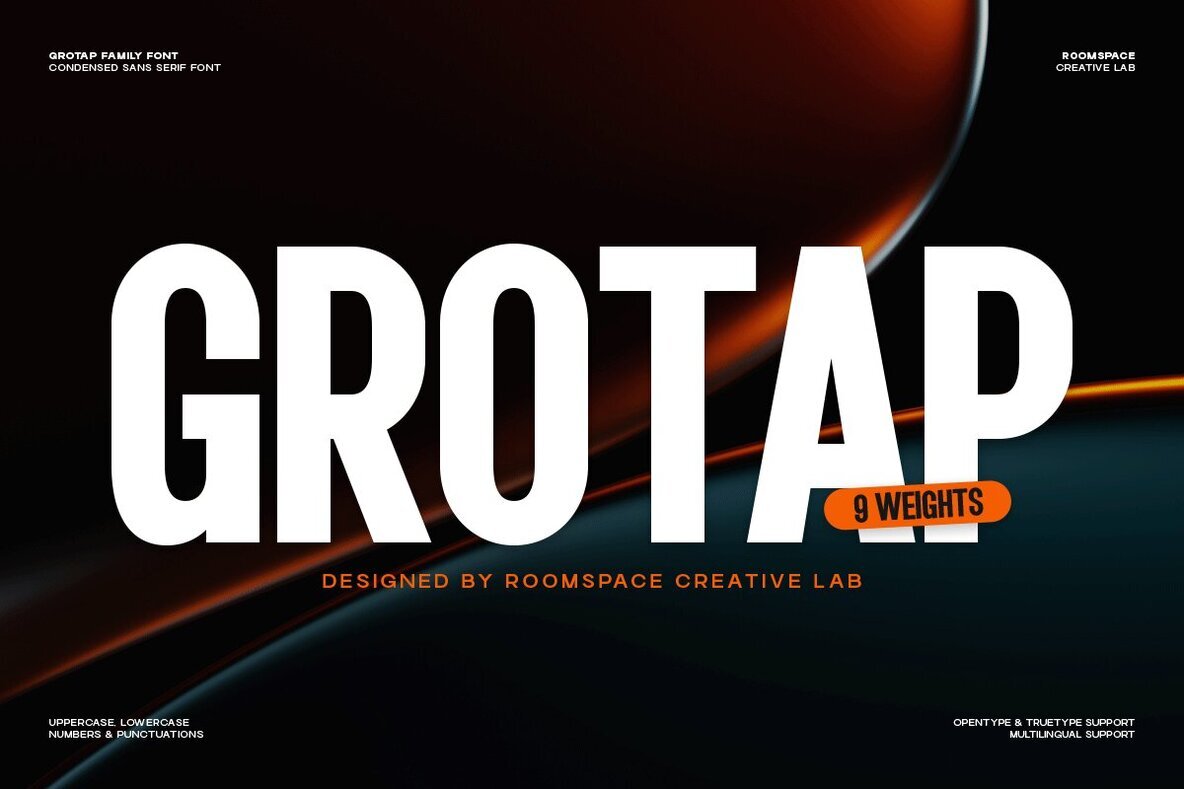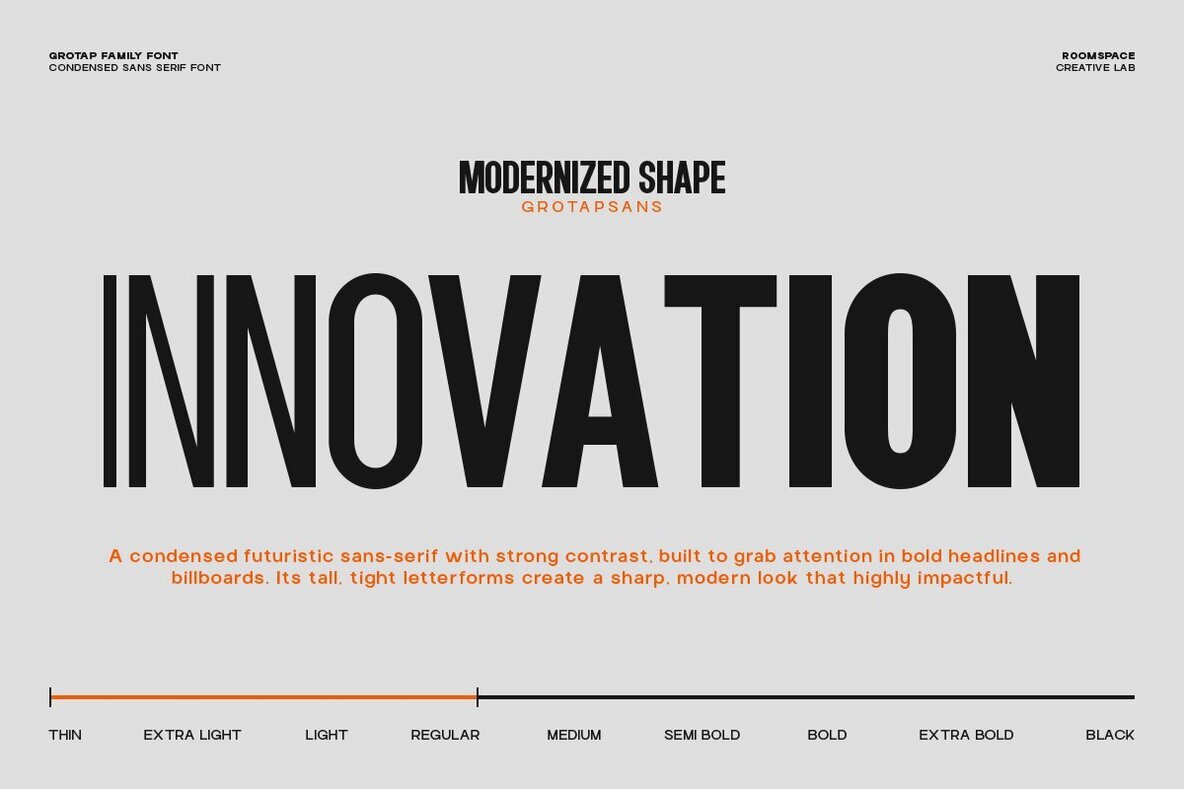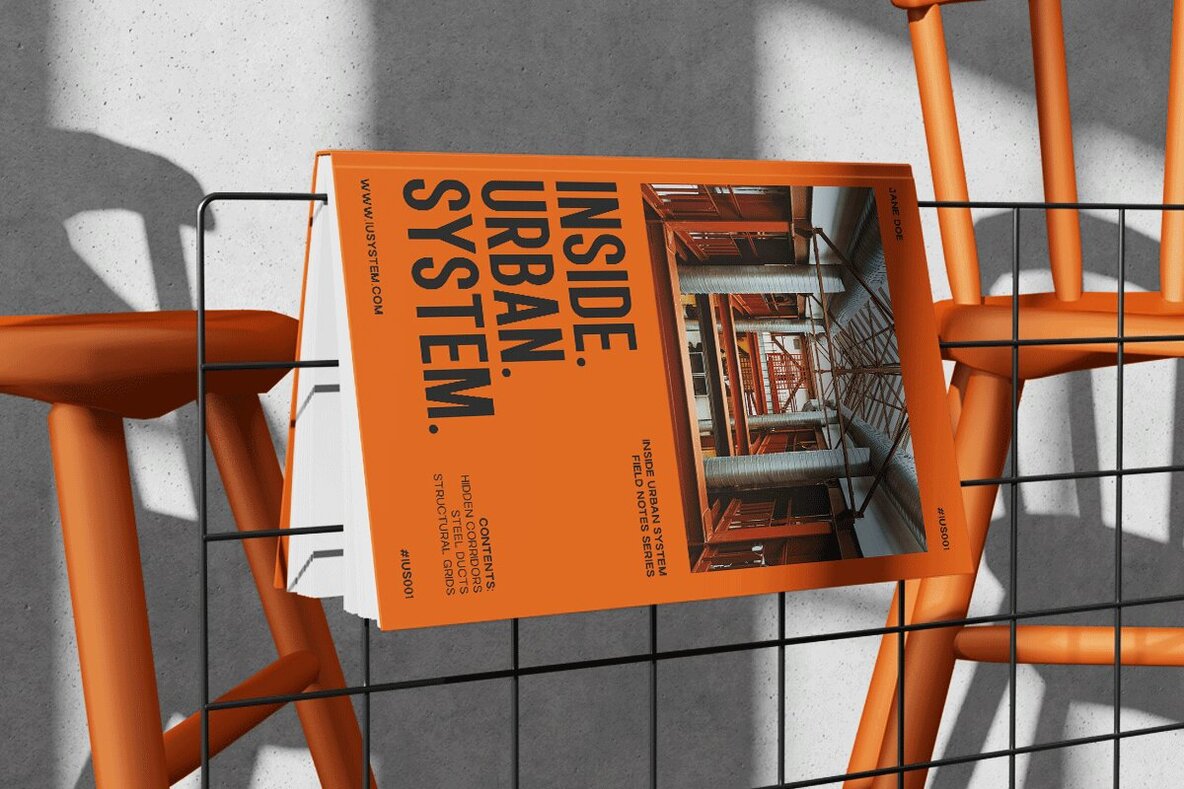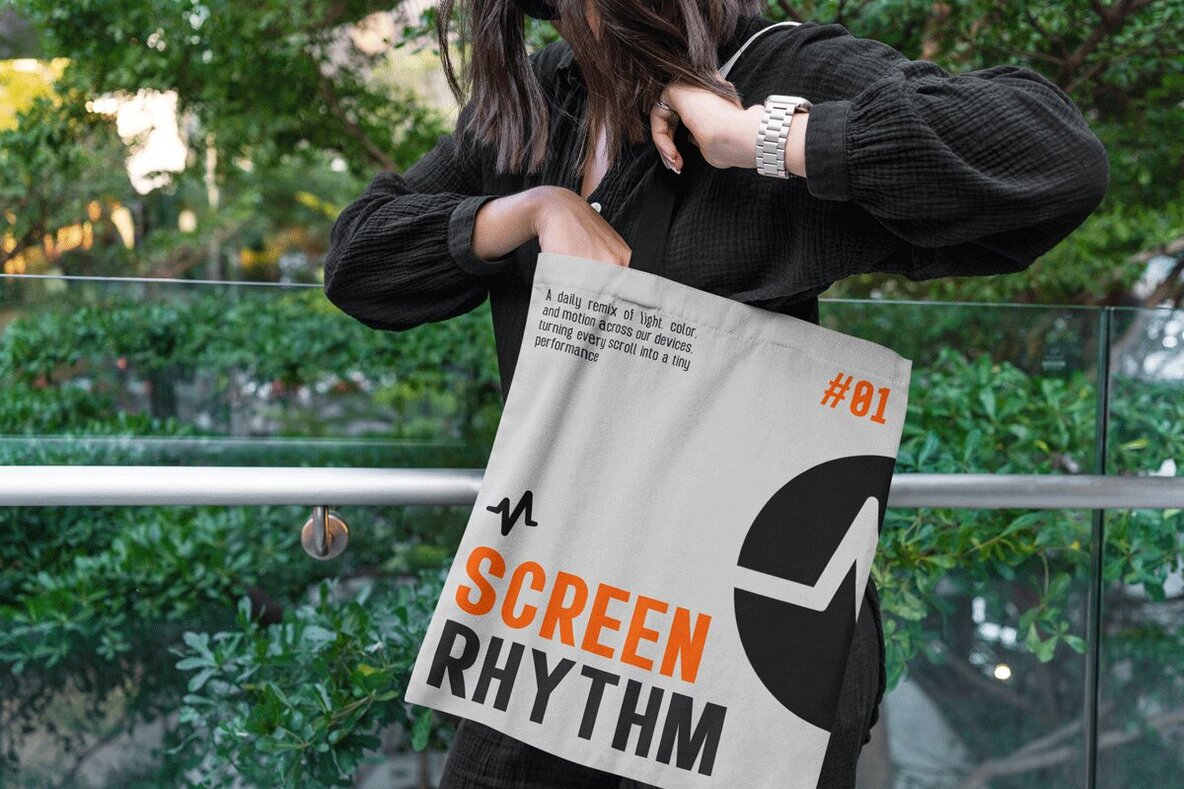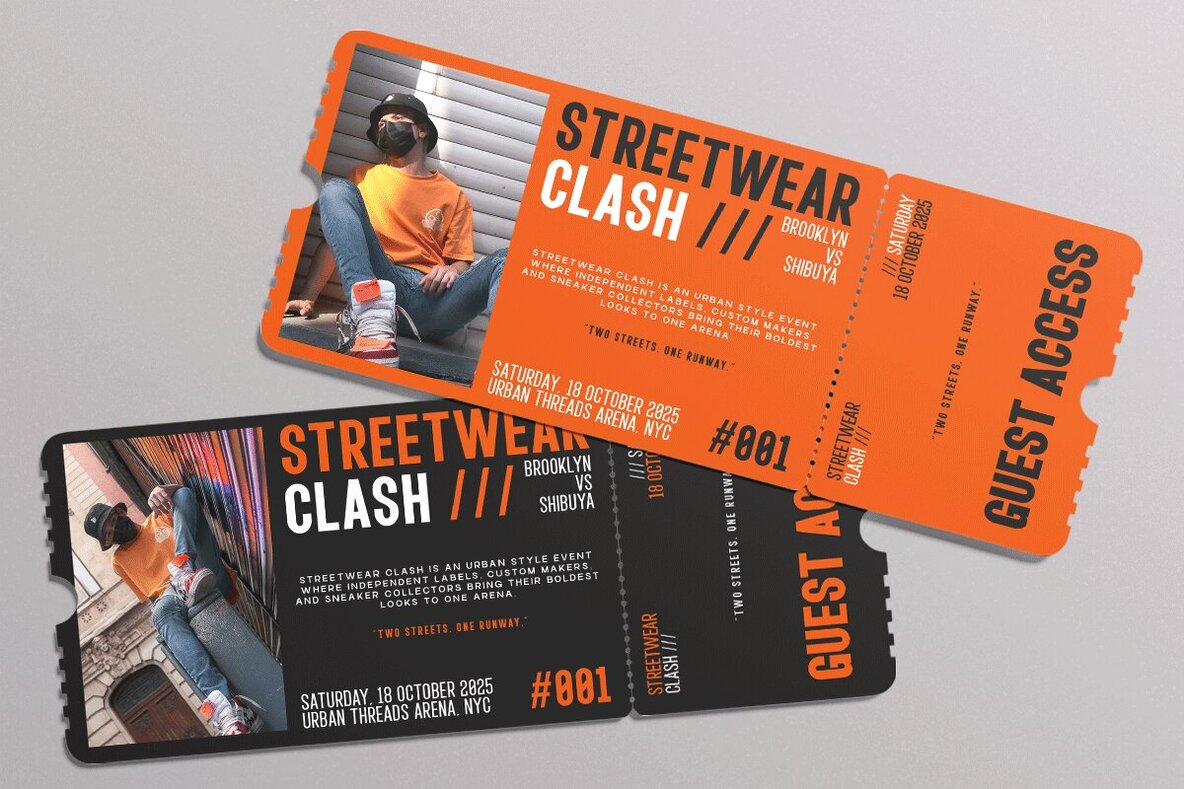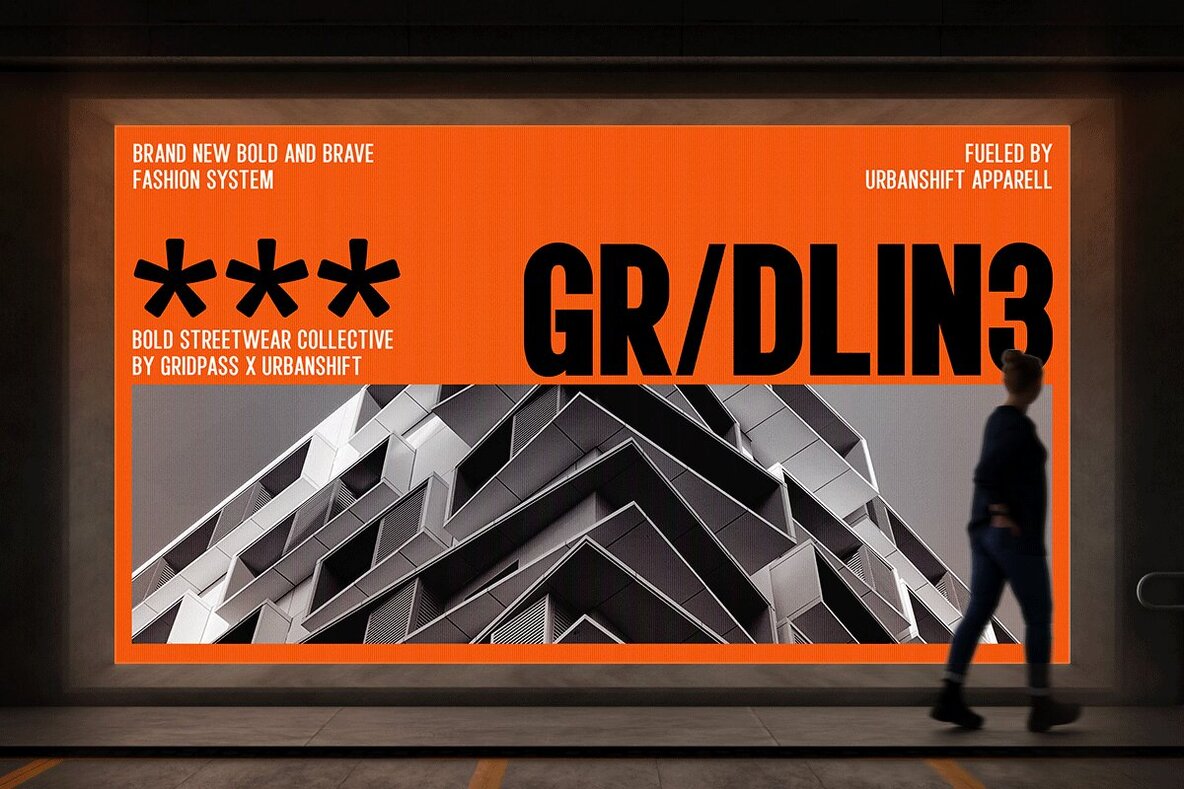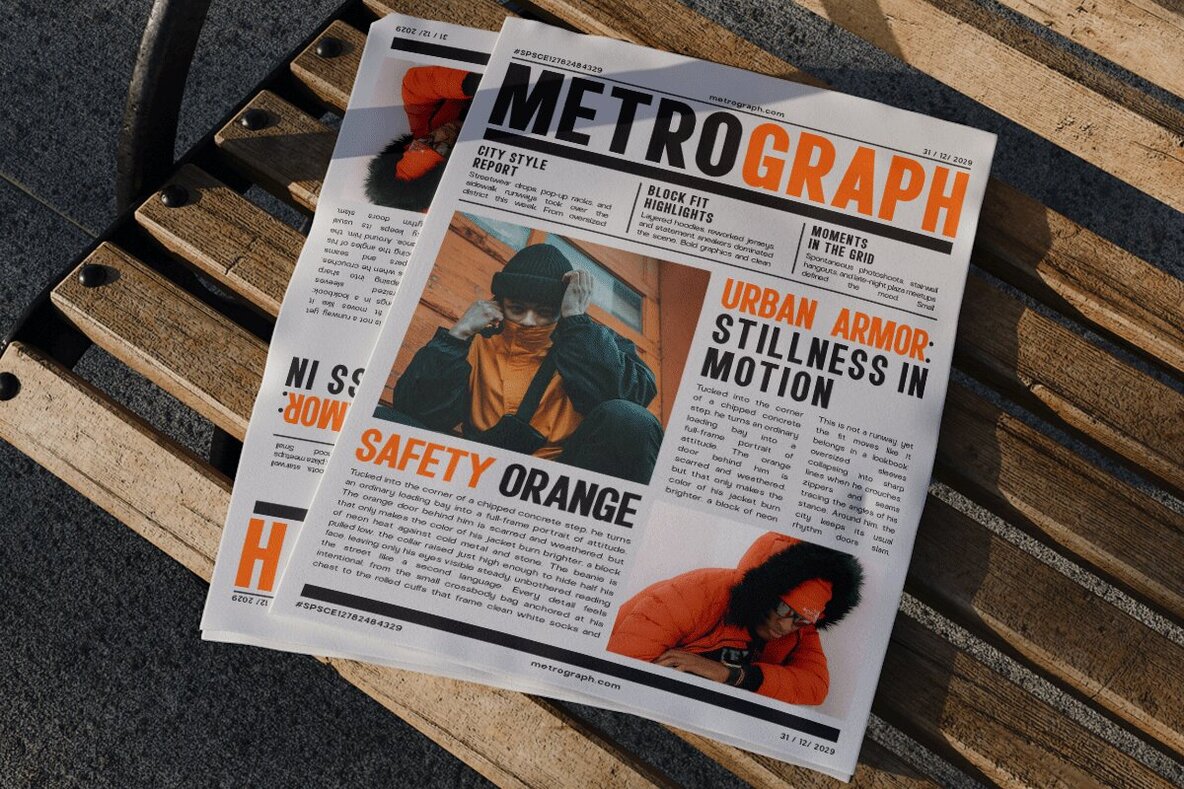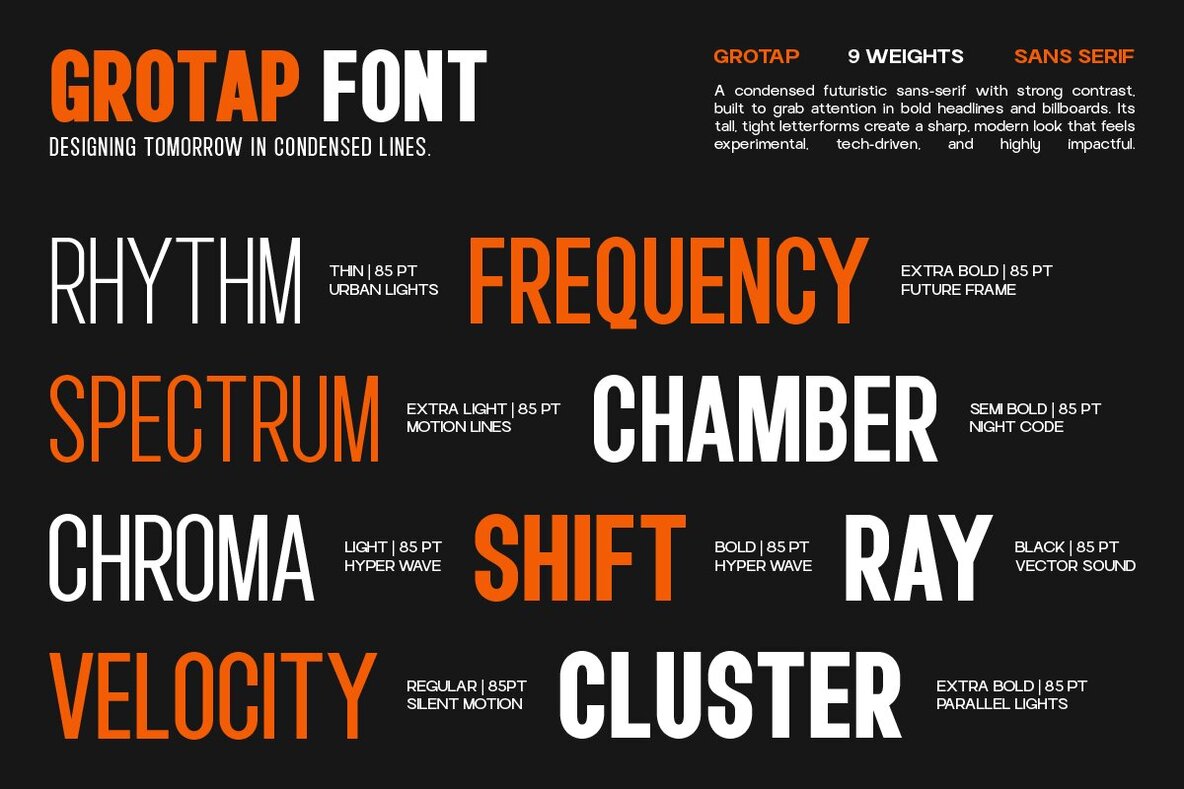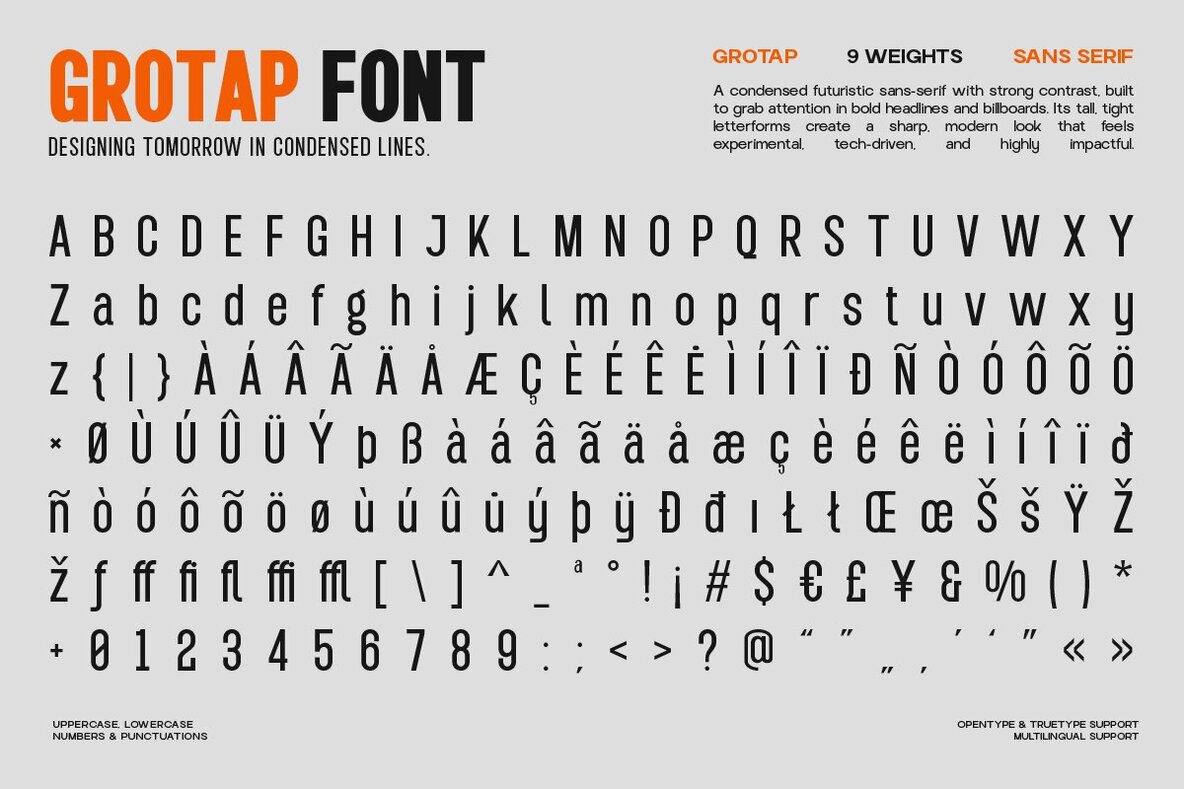
Grotap Font
Grotap stands out as a condensed sans-serif family purpose-built for modern editorial layouts and branding projects. With nine carefully engineered weights, it supports graphic designers seeking flexible type solutions that maintain clarity across headlines, packaging, and digital interfaces. The family’s tall letterforms and geometric structure elevate readability while creating a distinctive presence, suitable for applications where visual impact is paramount. Every aspect of Grotap—from spacing to kerning—reflects an emphasis on professional detail, ensuring seamless integration in both print and on-screen contexts. Its even proportions make it an asset for editorial spreads, signage, and contemporary brand identities that demand a clean, focused presentation.Grotap: Bold Condensed Sans for Editorial and Branding